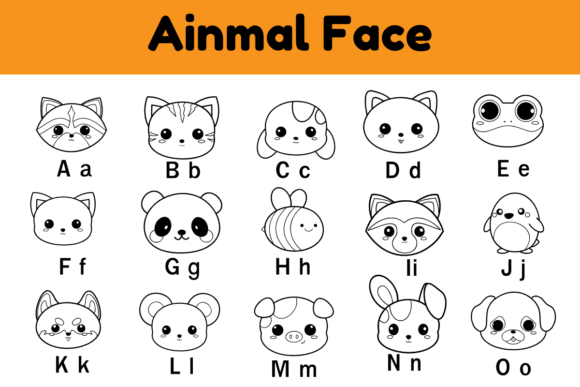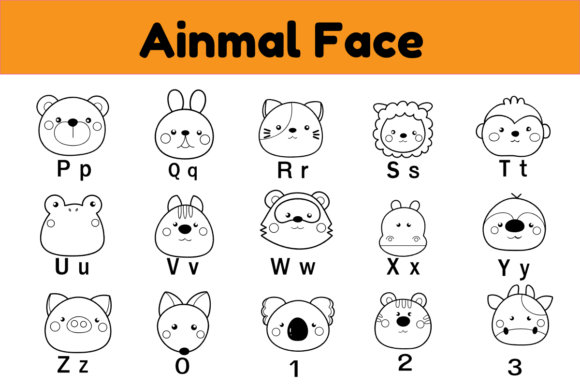
Animal Face Font
Animal Face is a fun dingbat font featuring adorable animal faces. Each letter or number in this font is replaced with a cute drawing of an animal, making your text playful and charming. Perfect for kids’ projects, invitations, and creative designs.